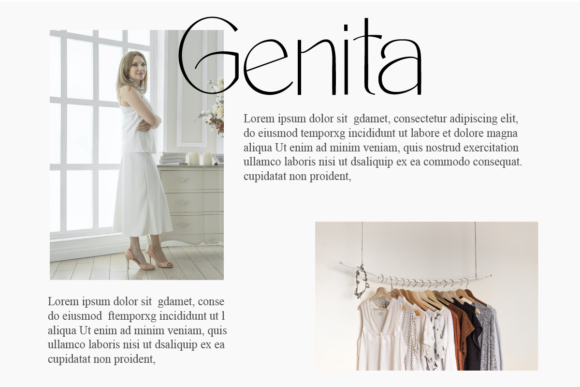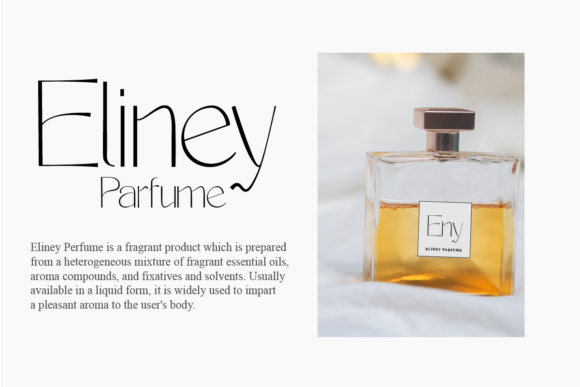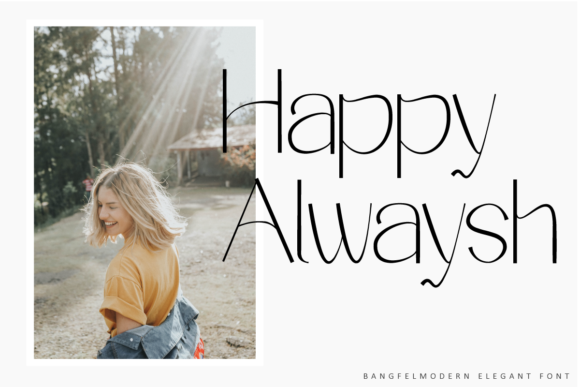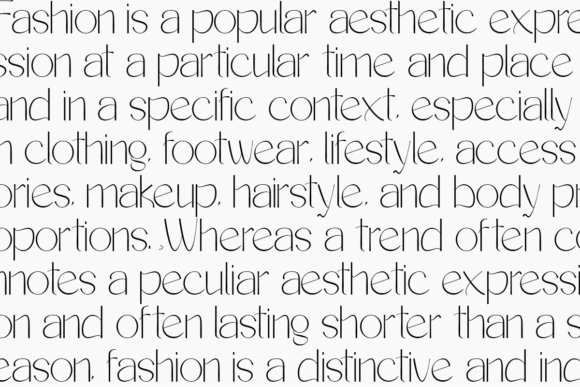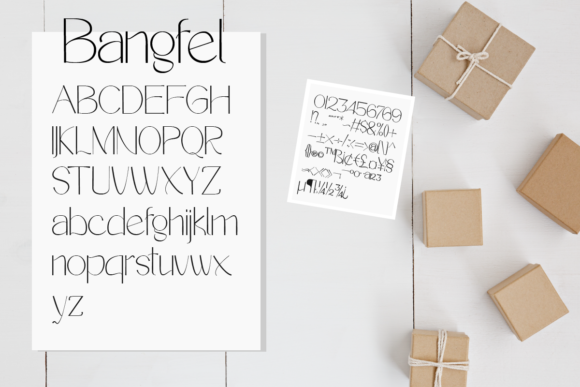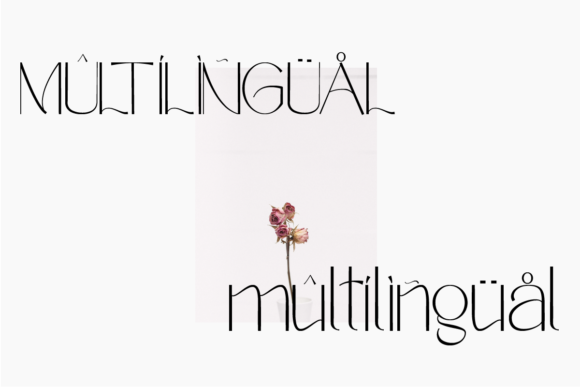
Bangfel Font: Elevate Your Designs with a Modern and Stylish Touch
In the world of design, typography plays a crucial role in conveying messages and capturing attention. A well-chosen font can elevate your design, making it more memorable and engaging. If you’re on the hunt for a modern font that exudes style and sophistication, look no further than Bangfel. This clean, thin, and smooth font is poised to become a favorite among designers and crafters alike.
The Bangfel Advantage: A Perfect Blend of Style and Versatility
Bangfel is a modern font that boasts a unique blend of style, elegance, and versatility. Its clean lines and thin strokes create a smooth, airy feel that’s perfect for a wide range of design applications. Whether you’re working on a logo, brochure, website, or social media graphics, Bangfel is the perfect choice. Its modern aesthetic ensures that your designs will stand out from the crowd, while its legibility guarantees that your message will be conveyed clearly.
Key Features of Bangfel Font
- Clean and Thin Design: Bangfel’s sleek, thin strokes create a clean and airy look that’s perfect for modern designs.
- Smooth and Elegant: The font’s smooth curves and lines ensure a sophisticated and elegant appearance.
- Highly Legible: Bangfel’s clear and concise design makes it easy to read, even at small sizes.
- Versatile: Bangfel is suitable for a wide range of design applications, from logos and brochures to websites and social media graphics.
- Modern Aesthetic: The font’s modern design ensures that your designs will look fresh and contemporary.
Why Designers and Crafters Love Bangfel
Bangfel has quickly become a favorite among designers and crafters due to its unique combination of style, versatility, and ease of use. Here are just a few reasons why:
- Easy to Pair: Bangfel pairs well with a variety of fonts, making it easy to create harmonious and visually appealing designs.
- Customizable: The font’s clean design makes it easy to customize and manipulate, allowing you to create unique and personalized designs.
- Scalable: Bangfel looks great at any size, from large headings to small body text.
- Time-Saving: With Bangfel, you can create professional-looking designs quickly and easily, saving you time and effort.
How to Use Bangfel in Your Designs
Using Bangfel in your designs is easy. Here are a few tips to get you started:
- Use it as a Headline Font: Bangfel’s bold, yet elegant design makes it perfect for headlines and titles.
- Pair it with Other Fonts: Experiment with pairing Bangfel with other fonts to create visually appealing and harmonious designs.
- Customize it: Don’t be afraid to experiment with different colors, sizes, and styles to make Bangfel your own.
In conclusion, Bangfel is a modern font that’s both memorable and stylish. Its clean, thin, and smooth design makes it perfect for a wide range of design applications. With its versatility, ease of use, and modern aesthetic, Bangfel is poised to become a favorite among designers and crafters. Whether you’re looking to elevate your designs or simply want to try something new, Bangfel is definitely worth checking out.